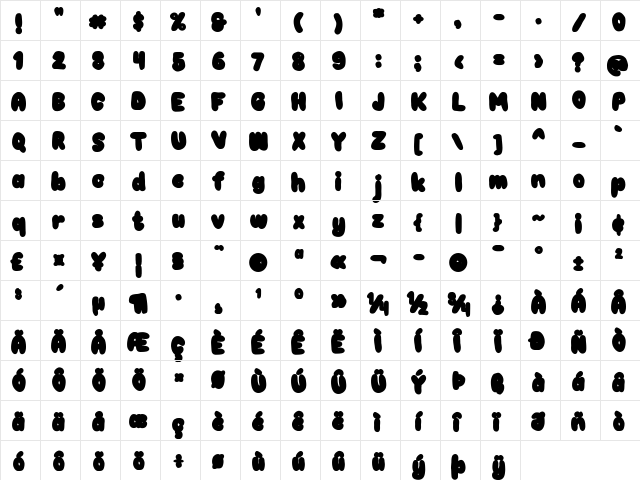
Choko Outline Regular
Design Context for Choko Outline Typeface
Choko Outline brings ornamental detail and strong personality to headlines and identities, where visual impact matters more than quiet functionality.
Font Pairing: Pair with a clean neutral sans-serif for body copy to let Choko Outline's character lead without overwhelming the composition.
Pro Tip: Treat Choko Outline as the centrepiece of your typographic hierarchy. One strong heading set in a decorative face can carry an entire layout.